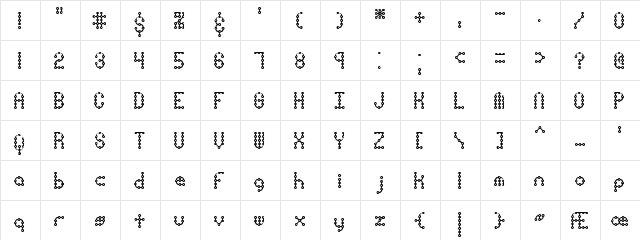
Pindown X Plain BRK Normal
Design Context for Pindown X Plain BRK Typeface
Pindown X Plain BRK is a composed and adaptable typeface that performs quietly and consistently across a wide range of design contexts.